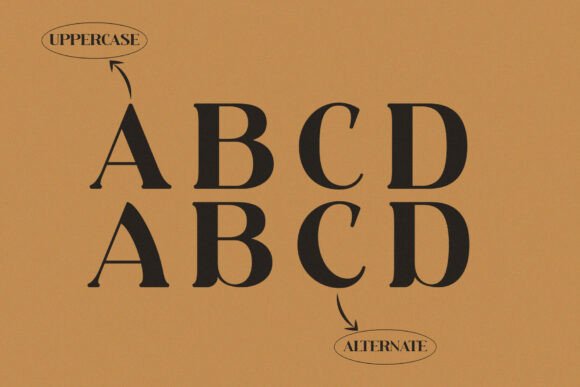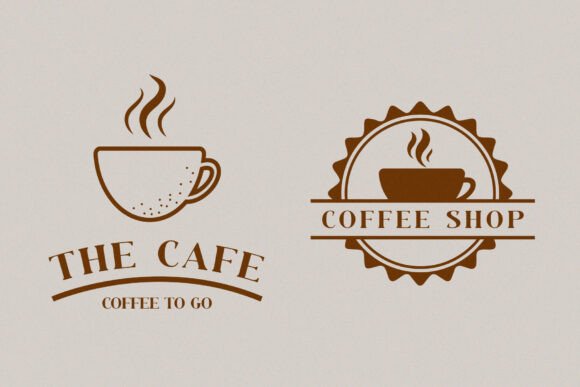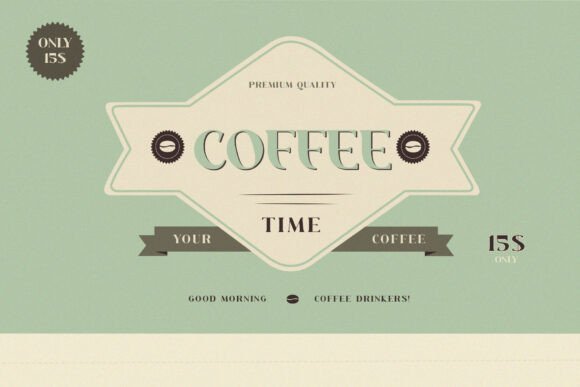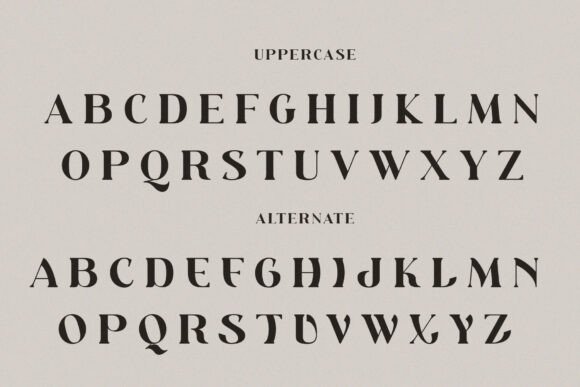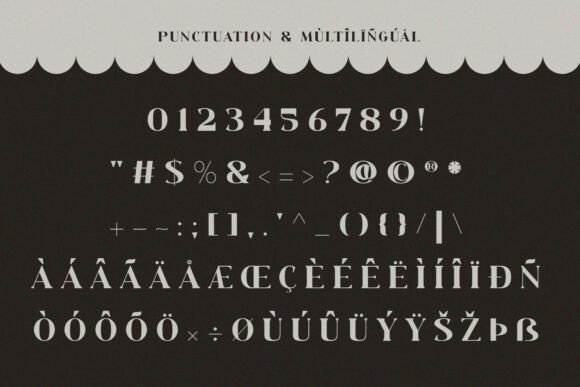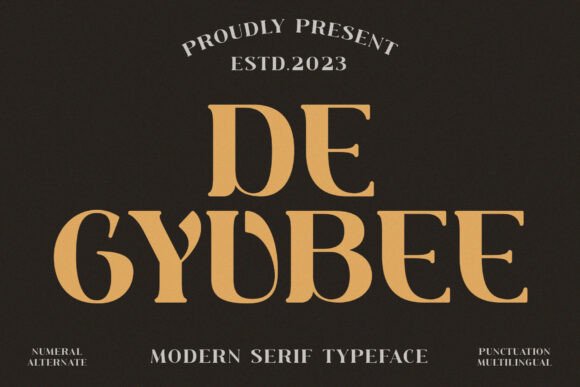
Introducing De Gyubee Font: Make a Bold Statement with Modern Serif Elegance
In the world of typography, a font can make or break the visual identity of a brand. For designers and crafters looking to make a bold statement, De Gyubee font emerges as a game-changer. This modern serif typeface is characterized by its massive visual weight and unique, stylized apertures, making it an exceptional choice for standout branding, edgy magazine headlines, high-impact poster design, and creative logo identities.
The Unique Charm of De Gyubee
De Gyubee boasts a heavy, rhythmic silhouette that seamlessly blends retro-inspired curves with contemporary geometric precision. The balance between its thick, confident stems and the unexpected, sweeping negative spaces creates a mesmerizing visual tension that commands immediate attention. This distinctive combination of traditional and modern elements sets De Gyubee apart from other serif typefaces, making it a versatile and powerful tool for designers.
Key Features of De Gyubee Font
- Massive Visual Weight: De Gyubee’s bold and imposing presence makes it perfect for headlines, titles, and emphasis.
- Unique Stylized Apertures: The font’s distinctive apertures add a touch of elegance and sophistication, setting it apart from more traditional serif fonts.
- Retro-Inspired Curves: De Gyubee’s curves evoke a sense of nostalgia and classic style, while its geometric precision ensures a modern and sleek look.
- Heavy, Rhythmic Silhouette: The font’s silhouette is both visually striking and harmonious, making it perfect for creating a lasting impression.
Applications of De Gyubee Font
De Gyubee font is an excellent choice for various design projects, including:
- Standout Branding: Make a bold statement with De Gyubee’s confident and attention-grabbing presence.
- Edgy Magazine Headlines: Add a touch of sophistication and edge to your magazine headlines with De Gyubee’s unique style.
- High-Impact Poster Design: Create eye-catching posters that demand attention with De Gyubee’s bold and striking presence.
- Creative Logo Identities: Establish a strong visual identity for your brand with De Gyubee’s distinctive and memorable style.
Benefits of Using De Gyubee Font
By incorporating De Gyubee font into your design projects, you can:
- Deliver a Sense of Artisanal Power: De Gyubee’s unique style and massive visual weight convey a sense of craftsmanship and attention to detail.
- Ensure a Legendary Presence: Make your brand stand out with De Gyubee’s bold and confident presence, ensuring a lasting impression on your audience.
- Enhance Visual Identity: De Gyubee’s distinctive style and elegant curves add a touch of sophistication and elegance to your visual identity.
De Gyubee font is a game-changer for designers and crafters looking to make a bold statement with their design projects. Its unique blend of retro-inspired curves and contemporary geometric precision, combined with its massive visual weight and stylized apertures, make it an exceptional choice for standout branding, edgy magazine headlines, high-impact poster design, and creative logo identities. With De Gyubee, you can deliver a sense of artisanal power and unyielding creative character to your visual identity, ensuring your brand stands out with a legendary presence.